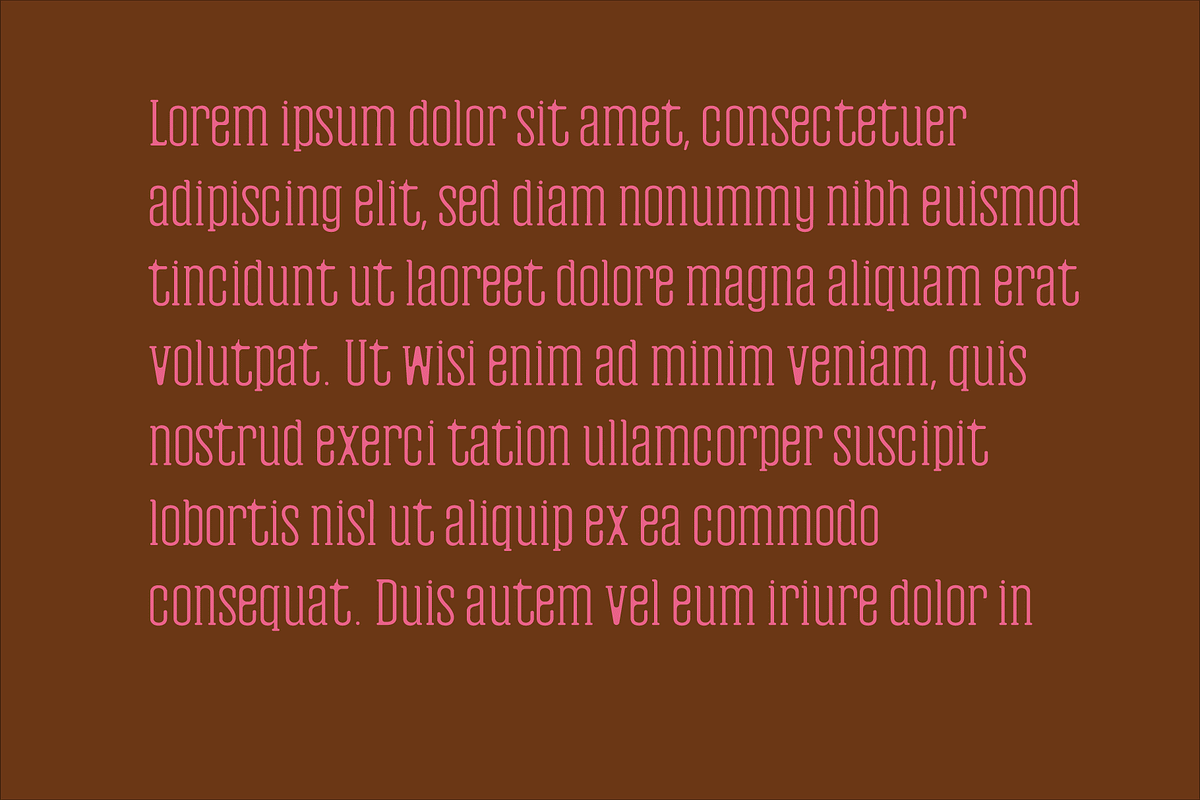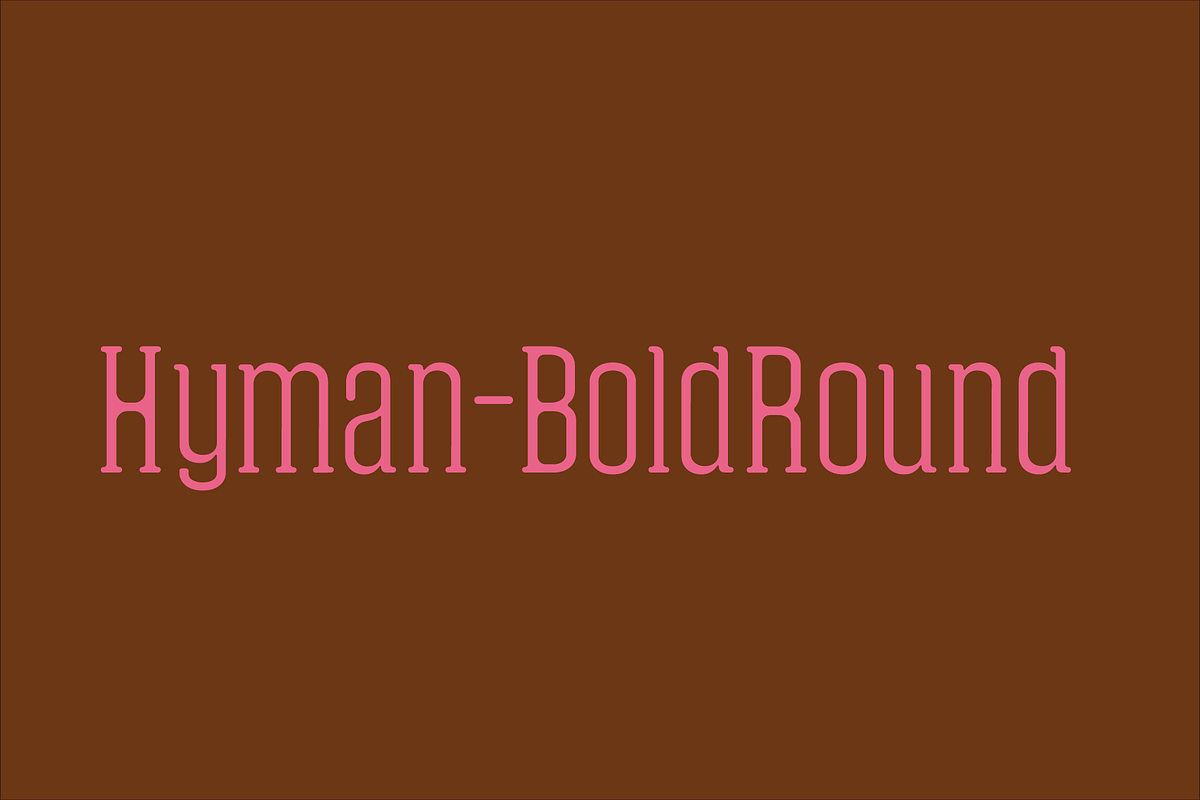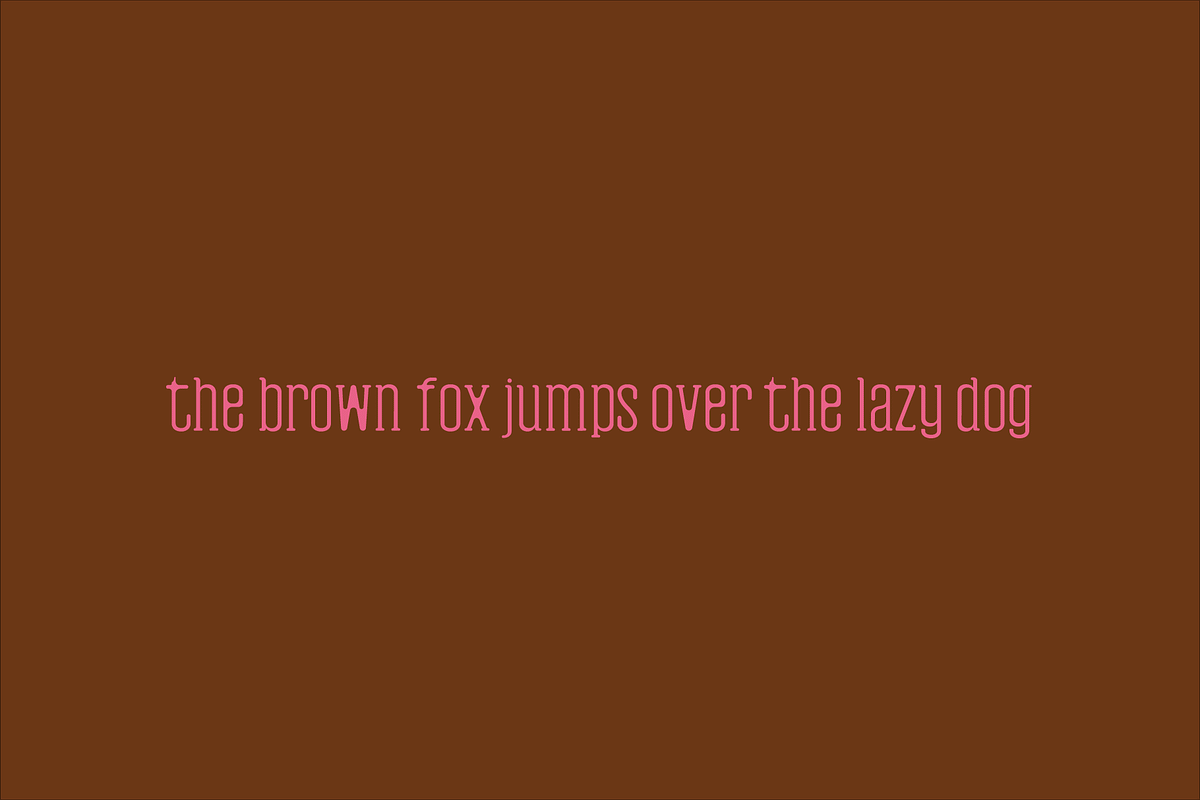
Hyman Rounded Serif Font Family
Hyman is a modern and minimalist rounded serif typeface with slab serif look. It comes with 4 weights: Regular, Light and Bold, which contains uppercase and lowercase alphabet, numbers, basic punctuation with multilingual support. This font will pair beautifully with the script, signature or handwriting style. Maiah can be used for headlines, posters, branding, packaging, presentations, logo, quotes, titles, magazines headings, web layouts, advertising, invitations, packaging design, books, and nearly any creative design.
Included Features:
Font Weight: Regular, Light and Bold
Hyman Font Features:
Uppercase Letters
Lowercase Letters
Non English Characters ( Latin Supplement + Latin Extended A)